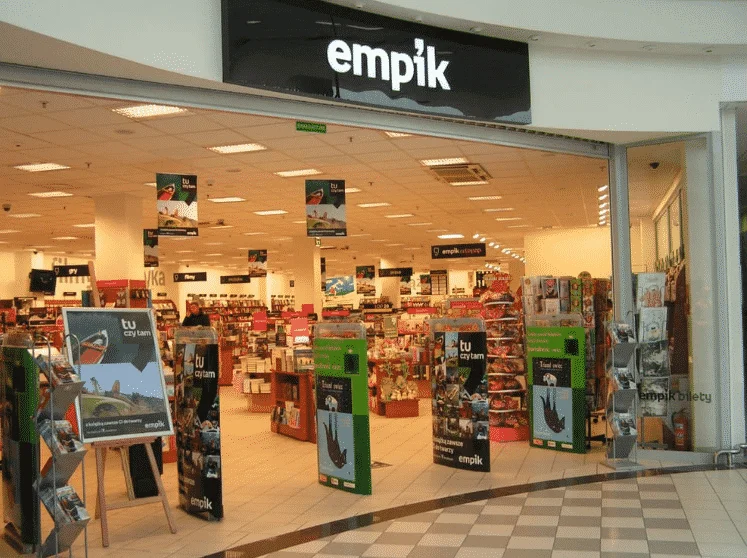
Empik Font
Empik Font is perfect for modern tech branding, corporate identity systems, professional websites, mobile app interfaces, minimalist logo designs, business presentations, clean editorial layouts, contemporary product packaging, sleek advertising campaigns, and sophisticated digital content that requires sharp typographic clarity and modern professionalism.
This font is exciting because it delivers exceptional geometric precision and contemporary styling that feels fresh, intelligent, and forward-thinking. The carefully balanced letterforms demonstrate meticulous attention to detail while maintaining impressive versatility across different scales and applications, making it an excellent choice for brands seeking to project innovation, efficiency, and modern sophistication.
The Empik Font family typically includes multiple weights ranging from thin to bold, uppercase and lowercase characters, numerals, comprehensive punctuation, special characters, and extended language support that ensures consistent typographic excellence across international markets and diverse platforms.
Whether you're creating cutting-edge tech startup identities, designing professional corporate materials, or developing user interfaces that prioritize clarity and modern aesthetics, Empik Font Free Download provides the typographic foundation for contemporary visual communication. Its clean character and professional versatility make every project feel more polished and credible, ensuring your designs effectively convey innovation, intelligence, and modern professionalism that appeals to forward-thinking audiences and establishes strong brand recognition across all touchpoints.